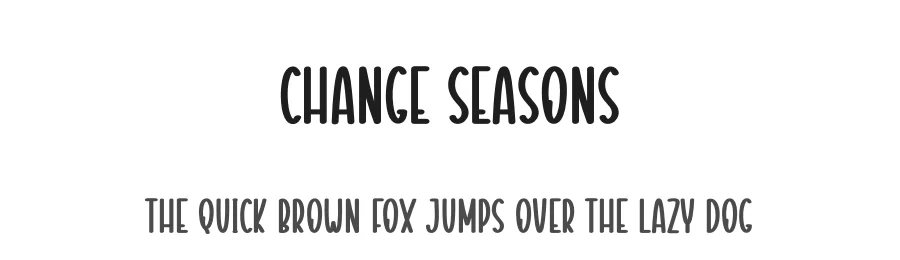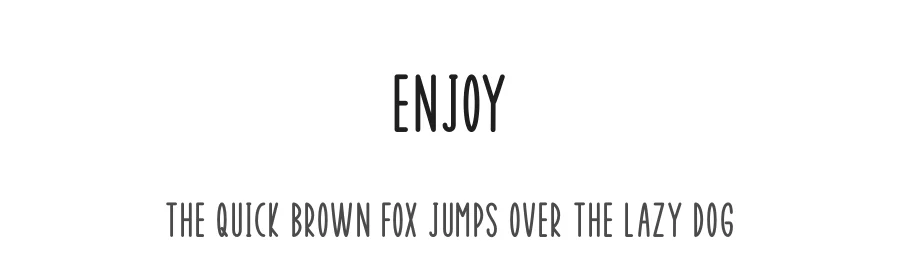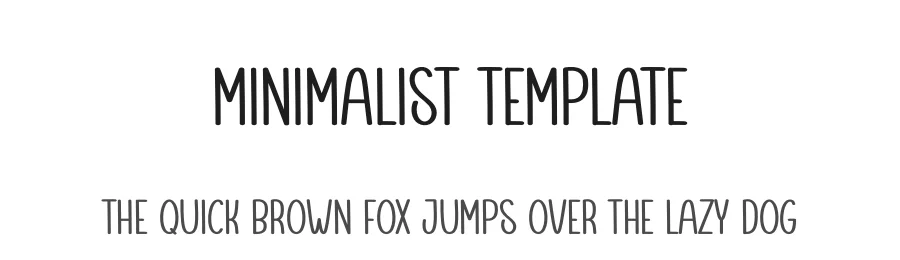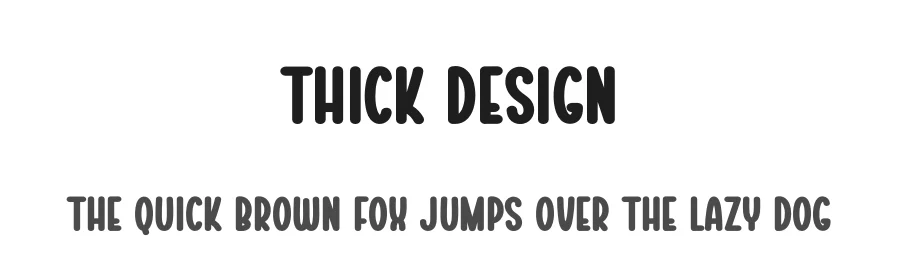
About Alisiya Font
Alisiya Font is a script font that shines as a display or heading face. Pair it with a clean sans-serif or serif font for body text β the contrast creates a clear hierarchy while the two styles stay balanced and easy to read.